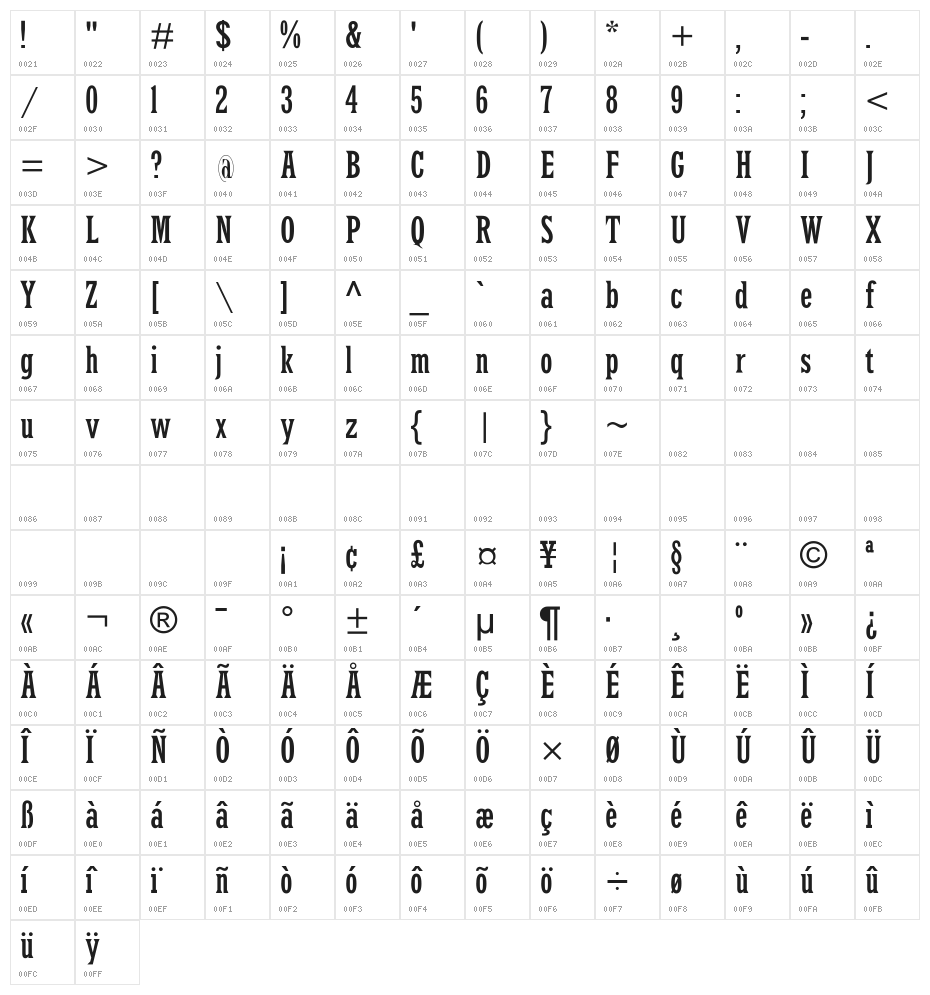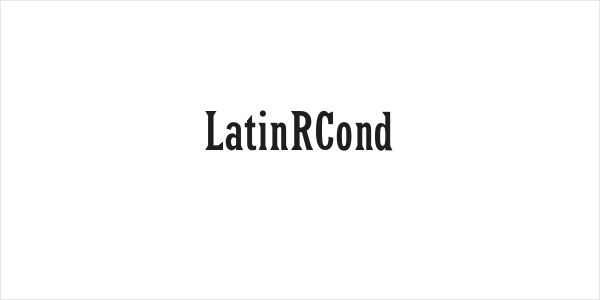
LatinRCond Font
LatinRCond Description
This font features a bold and condensed style with high contrast between thick and thin strokes, giving it a strong and impactful appearance. The serifs are prominent and slightly curved, adding a touch of elegance to the overall design. The uppercase letters are tall and commanding, while the lowercase letters maintain a consistent height, ensuring readability. The numbers are robust and align well with the alphabetic characters, making them suitable for various applications. Special characters are distinct and maintain the font's bold aesthetic, ensuring they stand out in any context.
| Proposed Projects | Ideal for headlines, posters, branding, and editorial design where a strong visual impact is desired. |